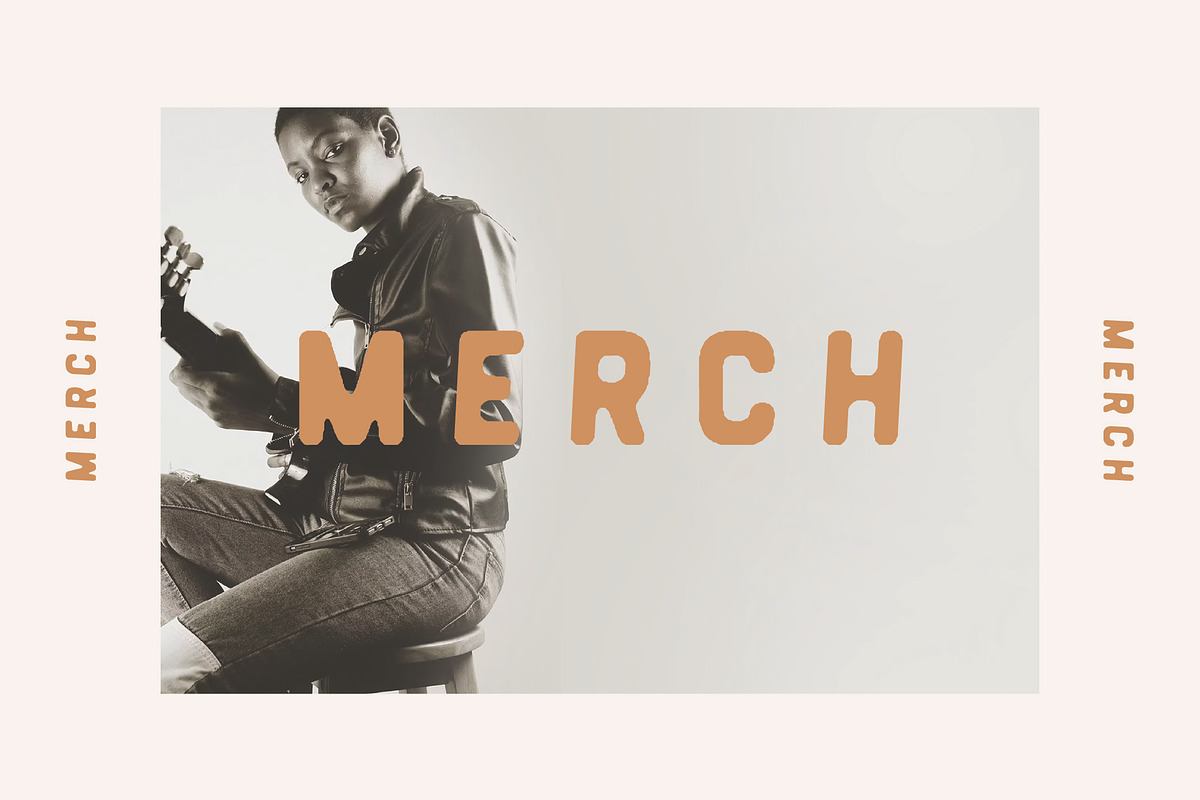
Merch Regular + Thin Font Free Download is a versatile typeface bundle offering both regular and thin weights, perfect for modern, minimalist designs. Ideal for logos, product packaging, branding, and social media graphics, this font set delivers sleek, professional typography with a contemporary flair.
With clean lines and balanced proportions, Merch Regular + Thin Font Free Download adapts seamlessly to both bold and refined design styles. Whether you're creating a modern brand identity, elegant web design, or stylish promotional materials, this font set ensures a polished, sophisticated look. Try it in your next project to explore its versatility—then upgrade to a commercial license when you're ready to share your design with the world.